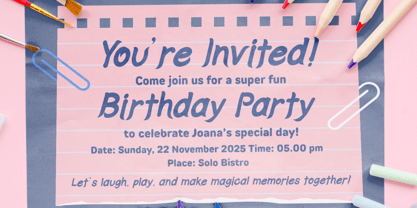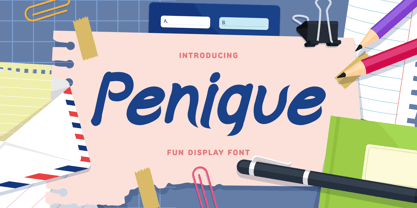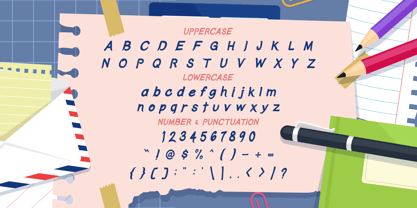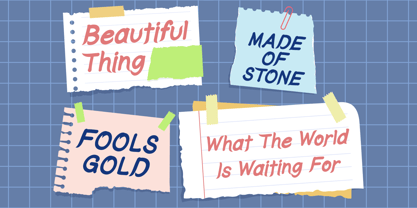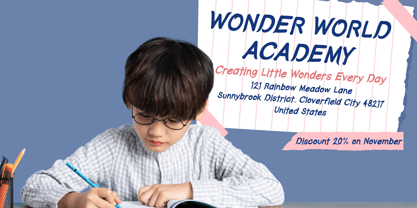
Penique
von Putracetol
Die Schriftfamilie Penique wurde von Putra Novembria Candra Kusuma entworfen und von Putracetol veröffentlicht. Penique enthält 1 Stile. Mehr über diese Familie
Penique Pen Font is a handwritten display typeface inspired by natural pen movements and casual scribble writing. The letterforms show a medium height with soft proportions and rounded terminals that feel relaxed and approachable. Each stroke carries an organic flow, with slight irregularities that add personality without hurting legibility. The weight stays balanced, not too thick and not too thin, creating a clean handwritten look that feels honest and expressive. Curves appear smooth, while connections between letters feel spontaneous, as if written in one confident motion. This structure gives the font a lively rhythm that looks natural across short phrases and longer texts. Penique Pen Font captures the feeling of everyday notes, classroom writing, and creative doodles, while still maintaining a polished shape suitable for professional design needs. Penique Pen Font works especially well for projects that need warmth, friendliness, and human touch. It fits logos, branding, posters, headlines, and advertising that aim to feel personal and engaging. The playful scribble style also suits greeting cards, invitations, stickers, book covers, and magazine titles. Its clear character spacing helps text stay readable at various sizes, making it reliable for both digital and print use. Designers can use this font to communicate creativity, youthfulness, and approachability without looking messy. Penique Pen Font supports creative businesses, educational materials, lifestyle brands, and casual products that want to connect emotionally with audiences. By blending a fun handwritten style with consistent letter construction, Penique Pen Font becomes a flexible choice for expressive design storytelling.